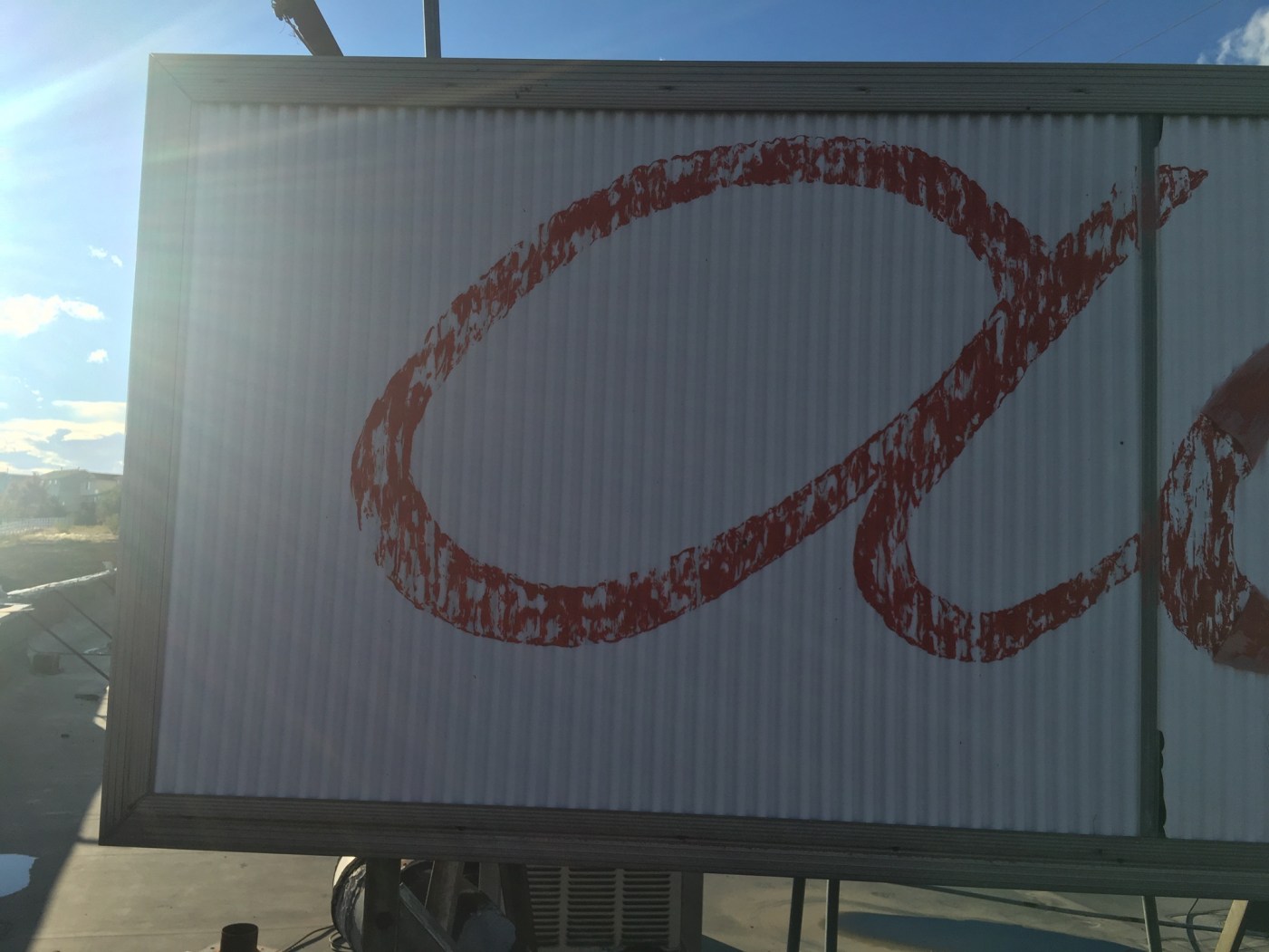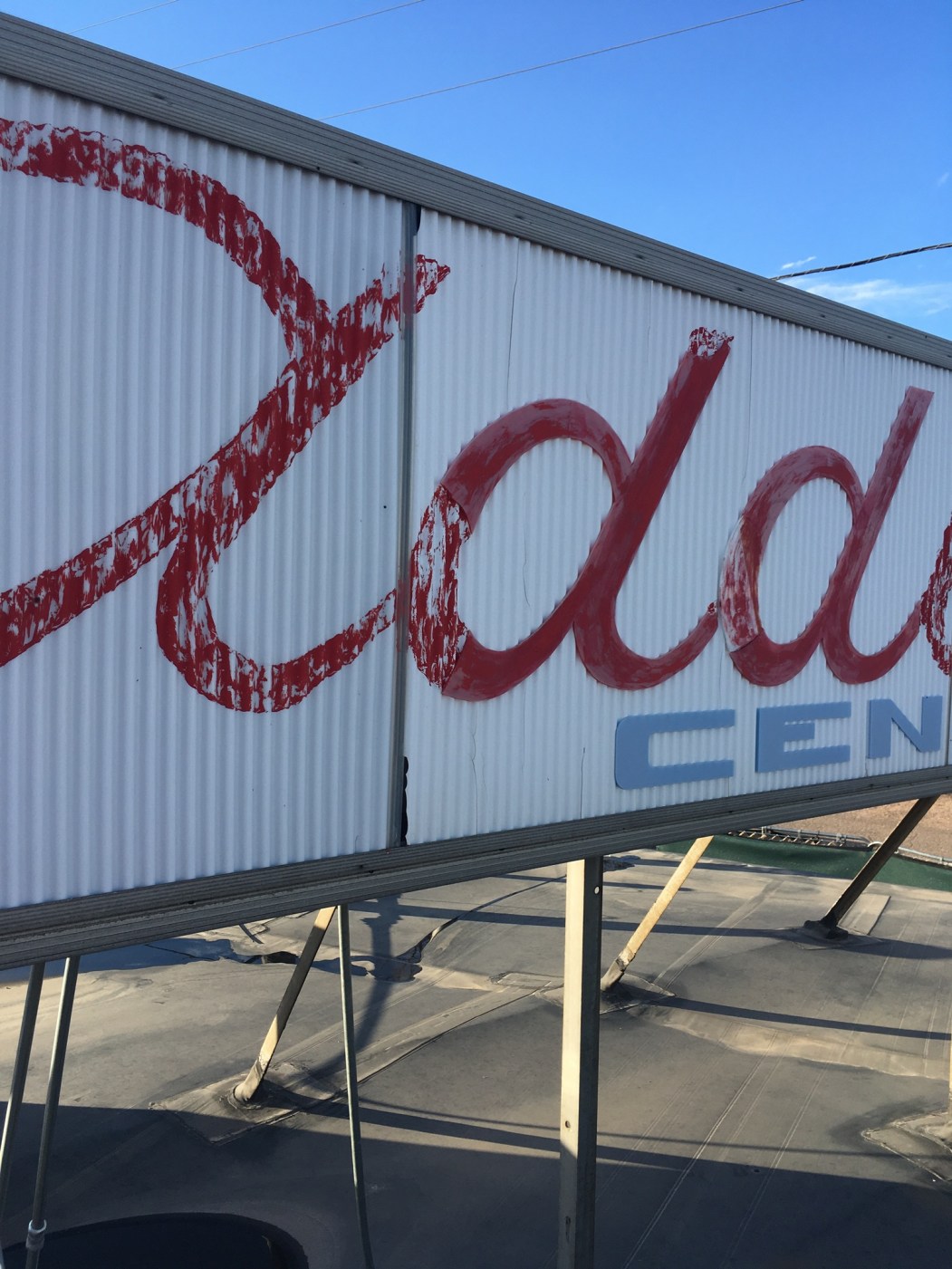
I am trying to make a new sign for the building my family owns, it would mean the world to my 91 year old dad if I could make the sign.   I thought I could trace but he "A" plastic fell of so hard to get exact trace, so thought if I could find font create stencil off that.
I found some that are very similar and I think it may have been made frrom his signature.  The bar opened on November 26, 1964 to give you a time reference.   The ones that were pretty similar were:
School Script
Dancing Script
Learning Curve Pro
Fairwater
Ruth Script
KG Always a Good Time
Alright
Advertising Script
I doubt you will get good results with existing fonts, since it probably was never based on a typeface. The big sign and the newspaper version also show significant differences.
I would look for a graphic designer (with typographic experience), a type designer or a lettering artist and give him/her a hi-res front-facing and complete picture of that existing sign or scans of older versions. It can then be vectorized professionally and the vector drawing can be used for the sign or any other use.